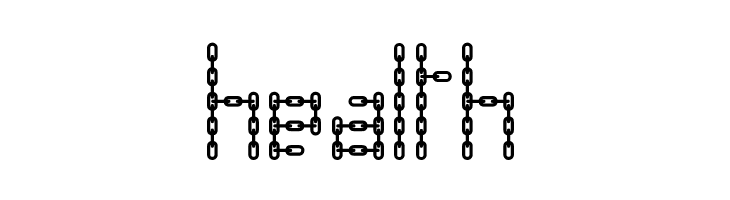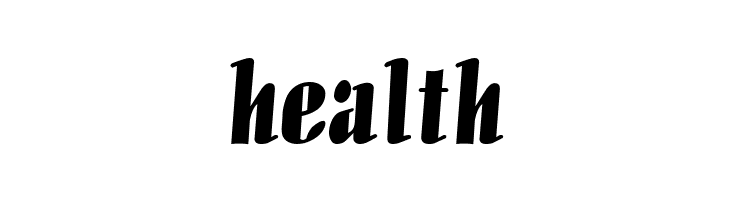
A classic serif font with high contrast and elegant serifs.
A playful, rounded font with smooth curves and a friendly appearance.
A dotted cursive font designed for handwriting practice.
A dotted line instructional font for handwriting practice with stroke guides.
A dotted guide font for handwriting practice with directional cues.
A dotted line font ideal for handwriting practice and educational materials.
A dotted cursive font ideal for handwriting practice.
A decorative font with spiral and circular motifs, evoking an ancient and mystical feel.
A modern, clean sans-serif font with excellent readability.
A modern, condensed sans-serif font with a clean and elegant style.
A decorative font resembling linked chains, ideal for impactful designs.
A pixelated, retro video game-inspired font with a decorative, nostalgic style.
A visual fraction font using divided shapes for educational purposes.
Geometric and hand-drawn bar and line shapes for educational diagrams.
A modern, rounded font with consistent stroke width and excellent legibility.
A bold, high-contrast font with elegant, dramatic strokes and a classic yet modern appeal.
A bold, italic sans-serif font with smooth, rounded edges and a modern look.
A dotted line font designed for handwriting practice, featuring clear and consistent character spacing.
A dotted educational font designed for handwriting practice.
A clear, educational music notation font with bold noteheads and simplified symbols.
Bold, high-contrast music notation font for rhythmic elements.
A bold, geometric font with a futuristic, outlined design.